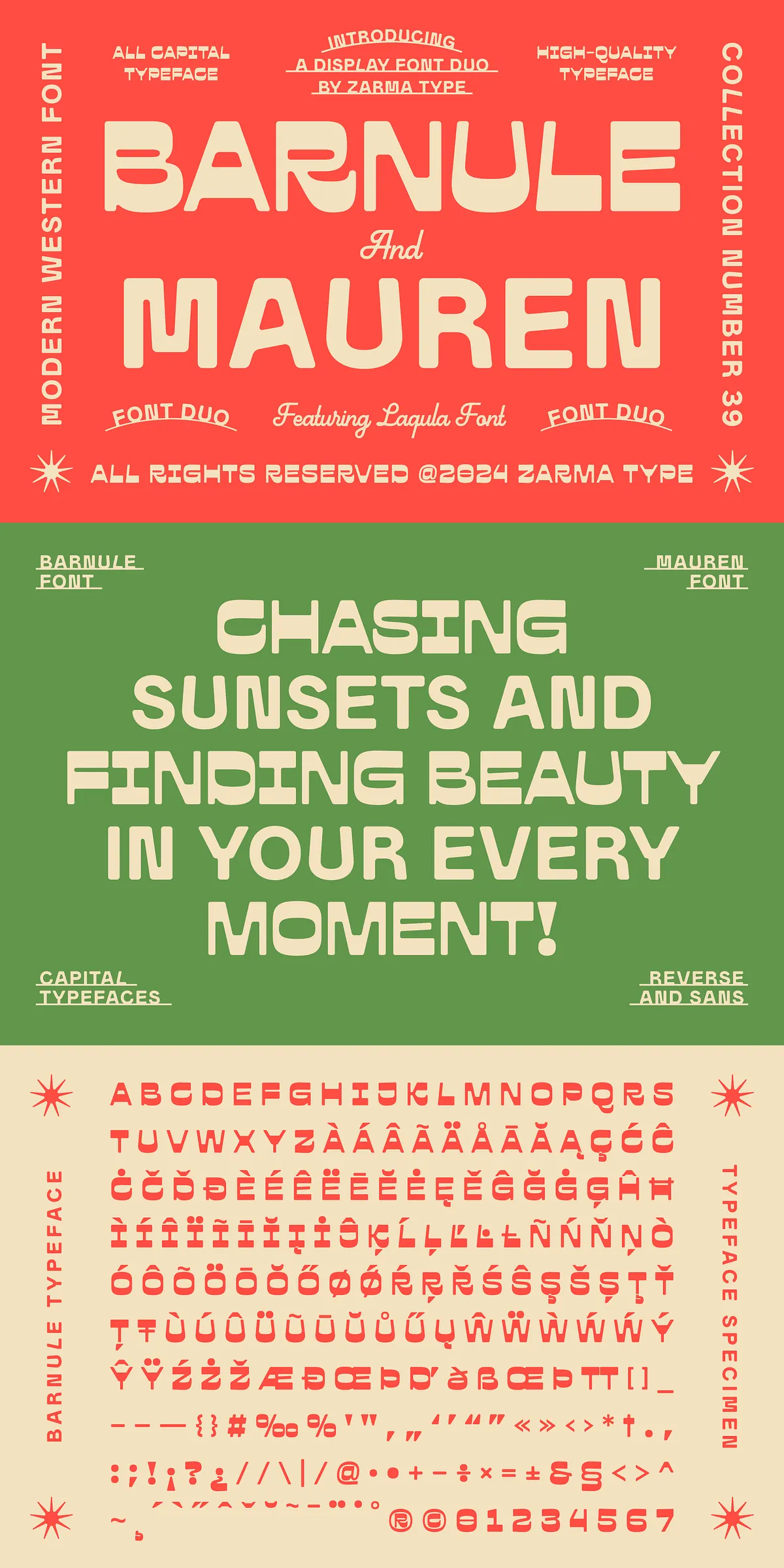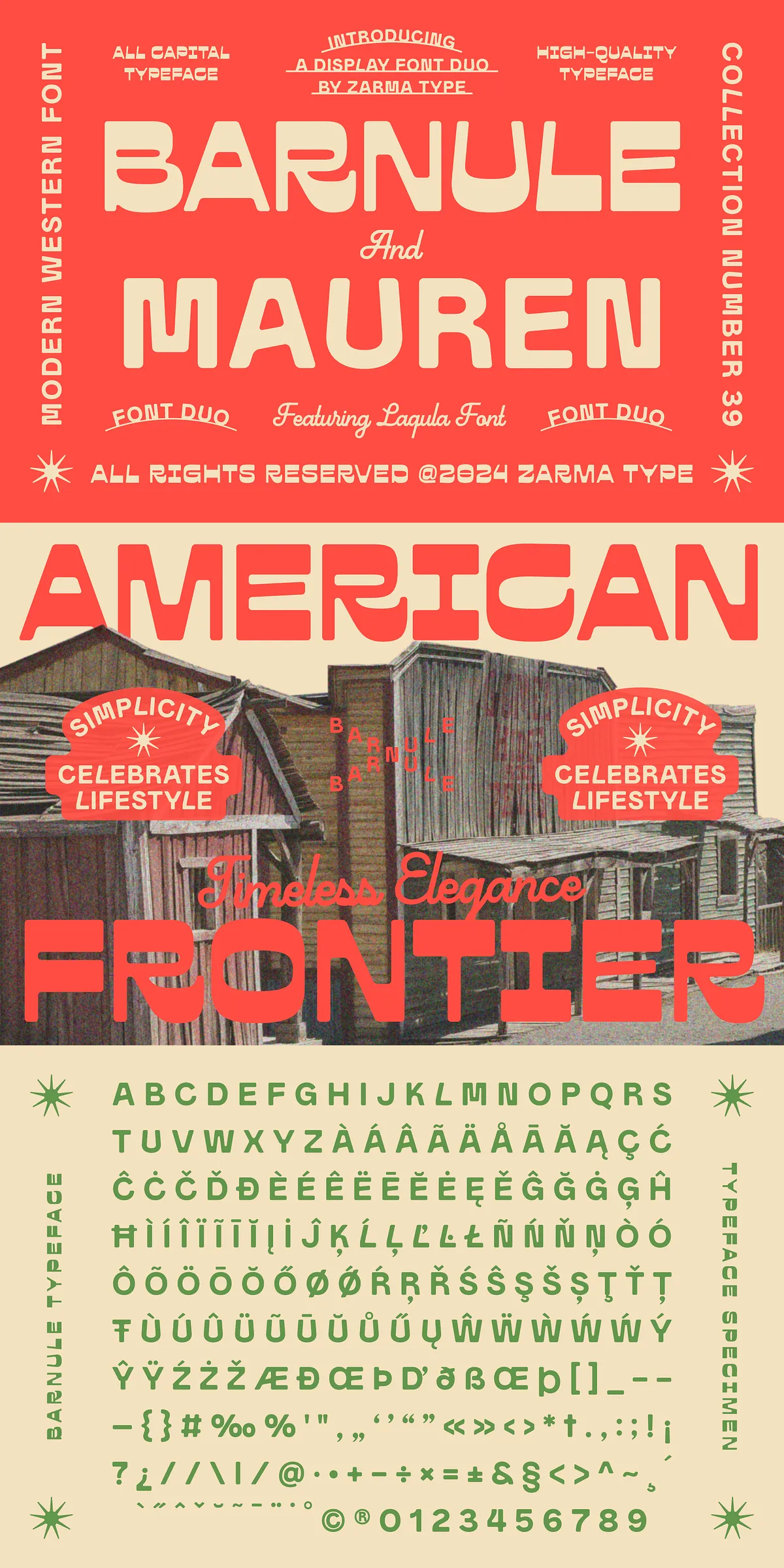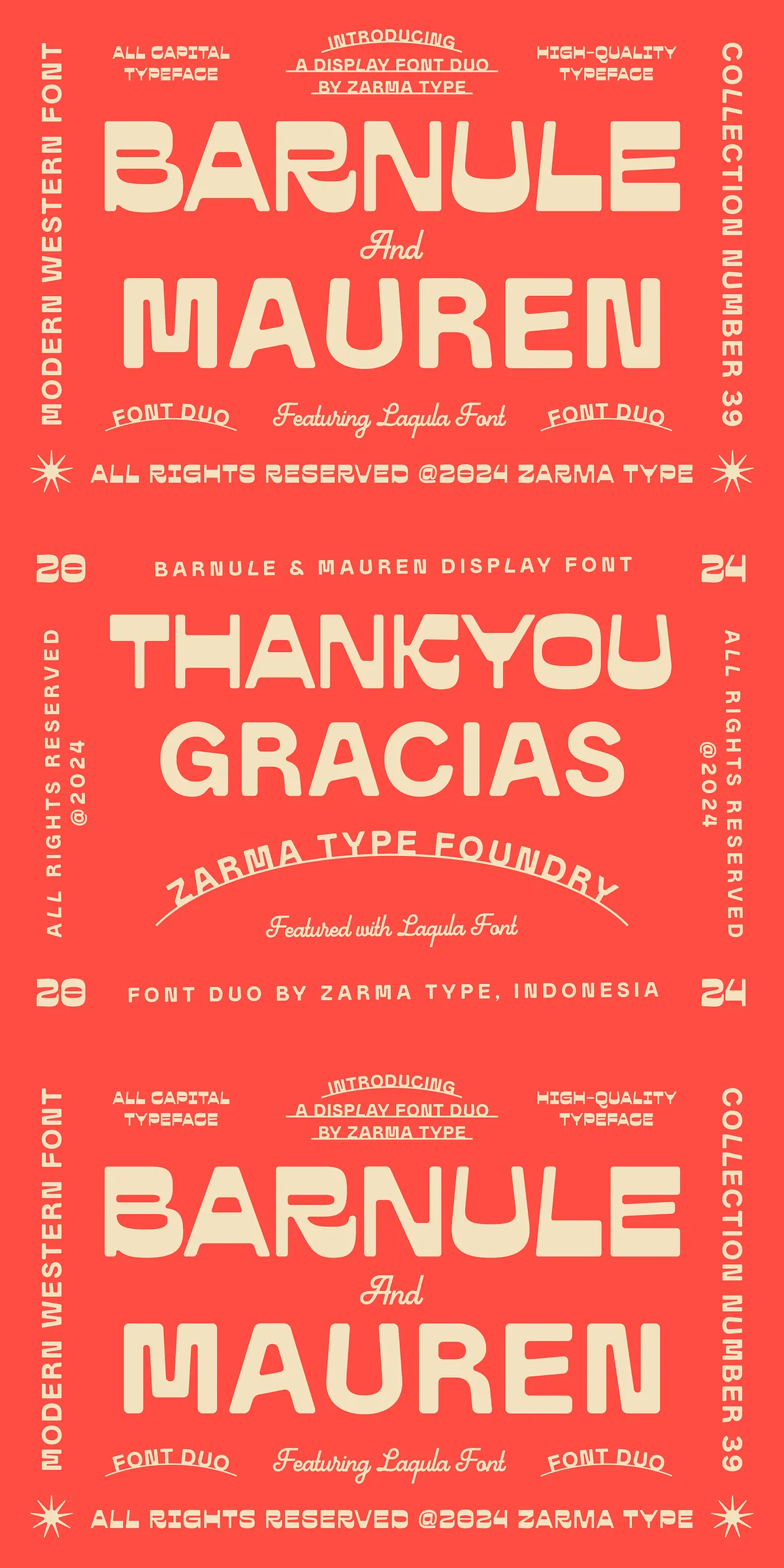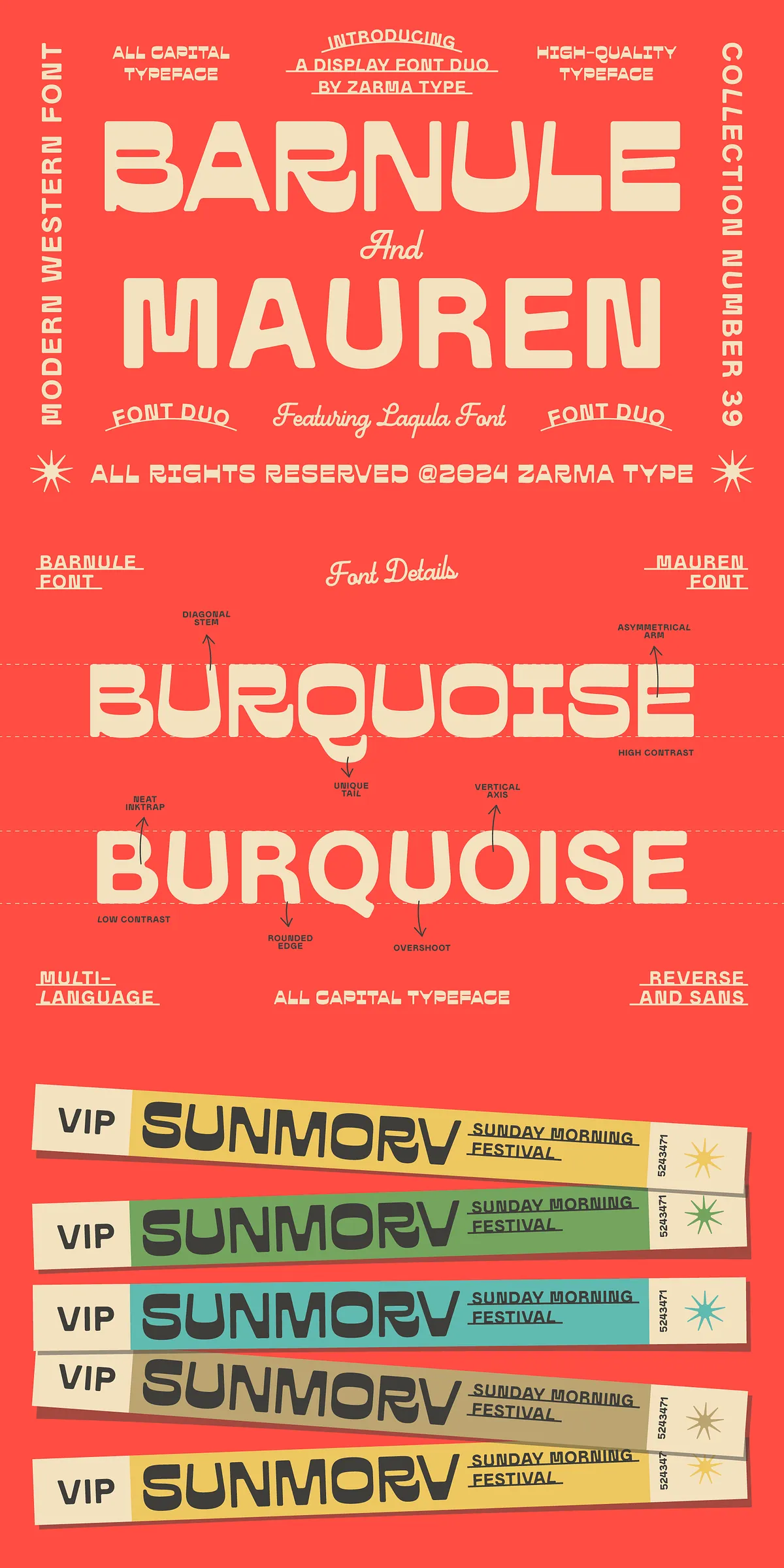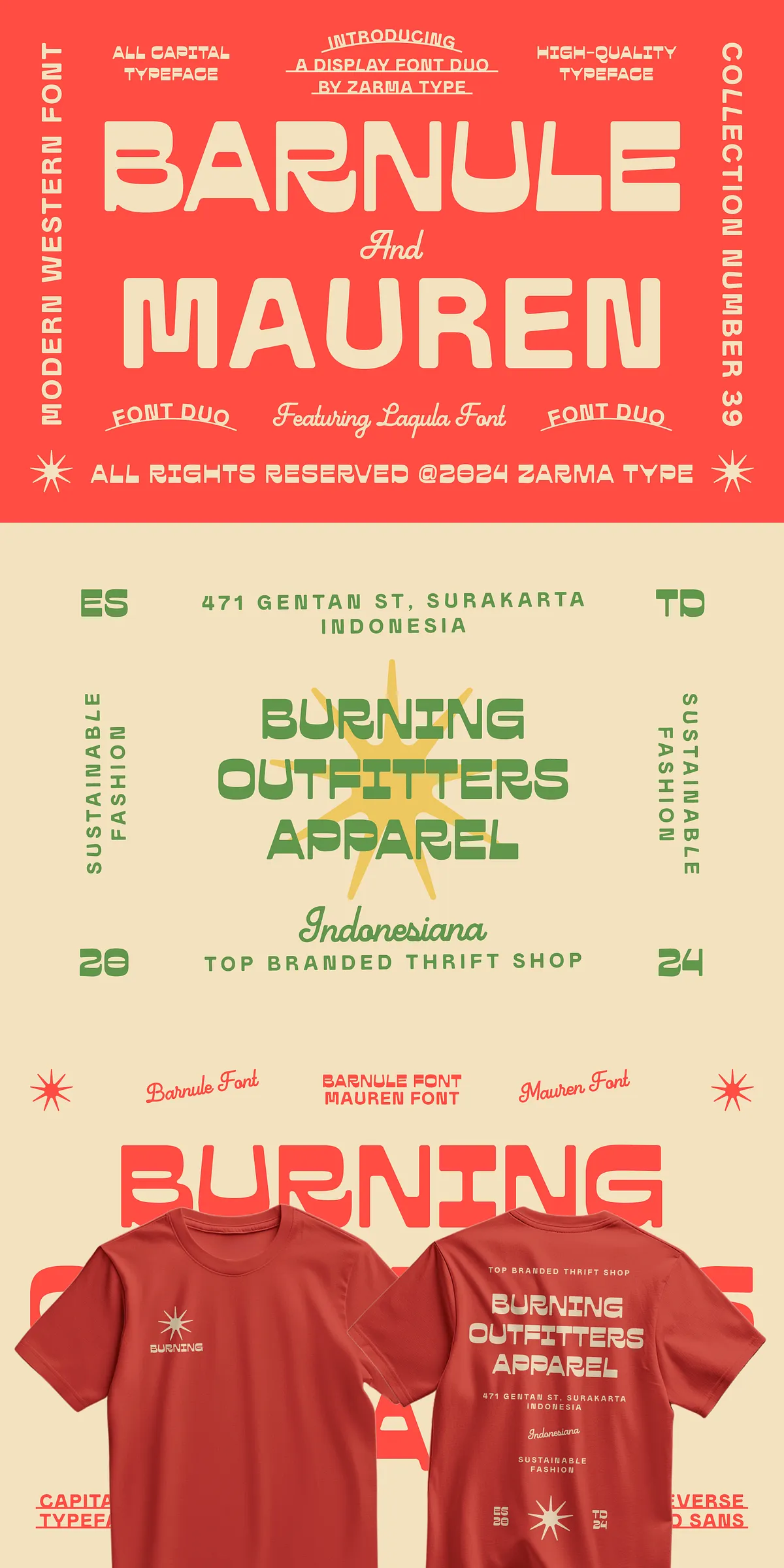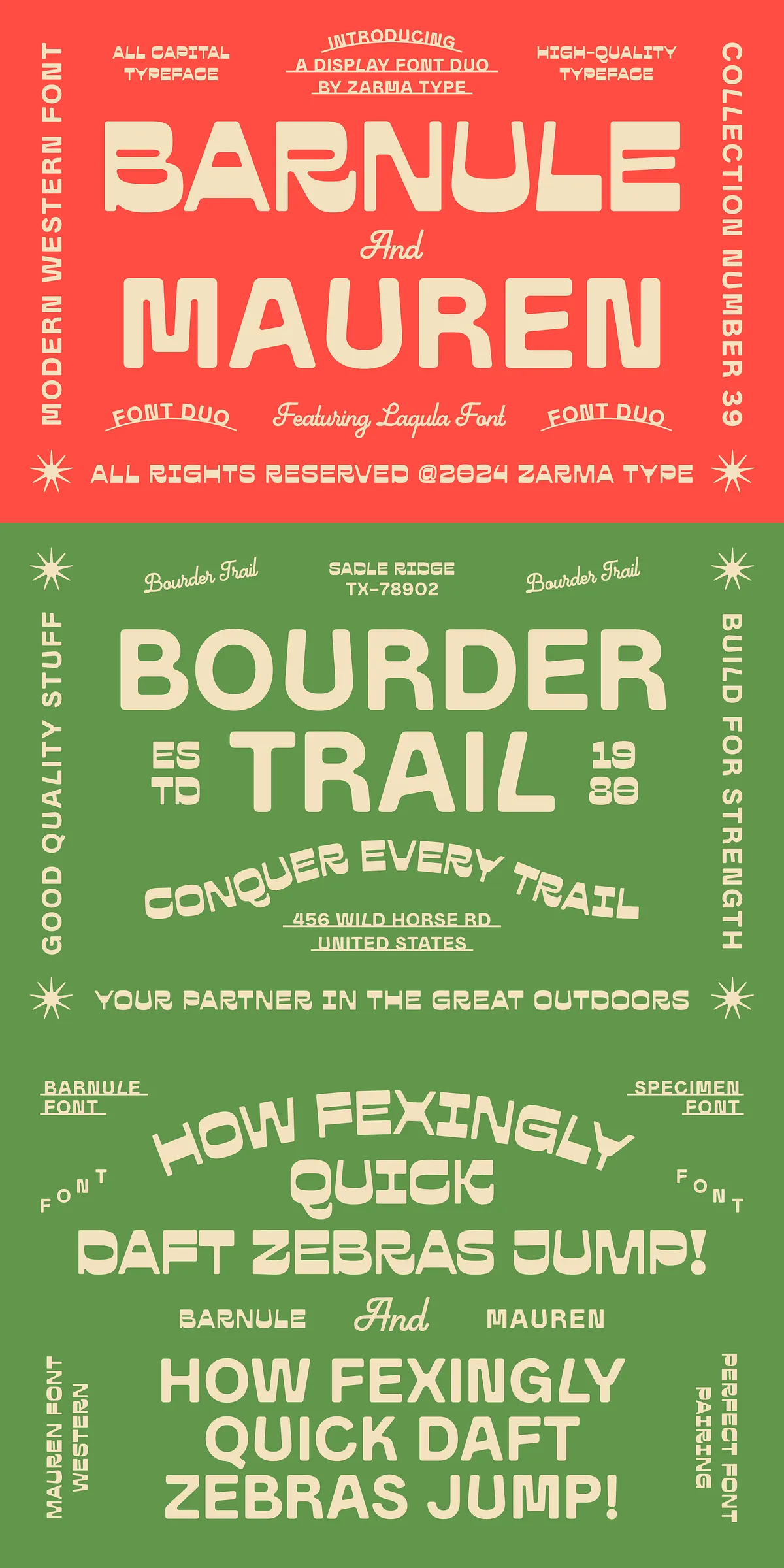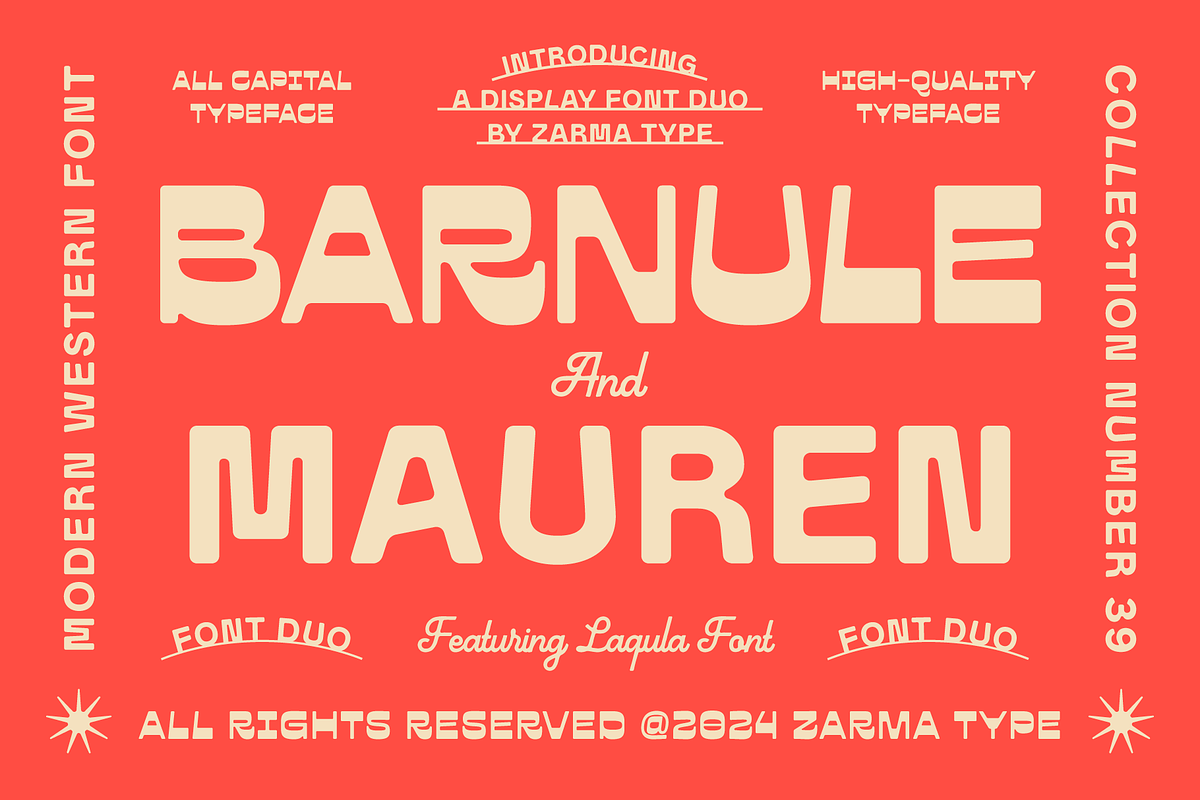
Bold. Confident. Irresistibly stylish. The Barnule and Mauren Font Duo isn’t just a typeface—it’s a statement. Designed for creators who value both striking presence and refined craftsmanship, this all-caps font duo captures the spirit of the American frontier with a modern twist. Its powerful character, soft-rounded edges, and clean geometric structure deliver a look that’s simultaneously rugged and refined. Whether you’re building a brand identity, designing apparel, or creating bold packaging, this font duo transforms ordinary text into unforgettable visual narratives.
Unmistakable Style: Bold All-Caps with Vintage Soul
Forget bland, generic fonts. Barnule and Mauren was engineered to command attention. Every letter is crafted in a fully uppercase style that radiates authority and confidence. Yet, unlike harsh industrial fonts, it avoids coldness through its carefully rounded terminals and balanced proportions. This unique fusion—modern strength combined with vintage warmth—gives your projects a timeless appeal that feels both fresh and nostalgic.
- Branding & Logos: Create bold, memorable identities for outdoor gear, lifestyle brands, or western-inspired businesses.
- Apparel & Merchandise: Elevate T-shirts, hoodies, hats, and bags with a font that screams authenticity and edge.
- Packaging & Labels: Make products stand out on shelves with a look that feels handcrafted and premium.
- Outdoor & Adventure Themes: Ideal for adventure travel blogs, rugged gear brands, or festival branding.
Designed for Creativity: OpenType & PUA Flexibility
Every detail of Barnule and Mauren is built with professional designers in mind. The font duo includes robust OpenType features that unlock advanced typographic control, including ligatures, stylistic alternates, and contextual substitutions. Need a subtle variation for a logo? You’ve got it.
Thanks to PUA (Private Unicode Area) encoding, access to an expansive library of alternate characters is seamless and intuitive—no complex keyboard shortcuts or special plugins required. Whether you want to switch a “B” with a more angular variant or replace standard punctuation with ornamental versions, the creative possibilities are limitless.
Powerful Language Support for Global Projects
Barnule and Mauren is not just visually striking—it’s functionally global. With support for 80+ languages, it’s ideal for international brands and creators working across cultures. Covering extended Latin, Cyrillic, Greek, and more, the font ensures your message remains clear, consistent, and professionally rendered—no matter where your audience is.